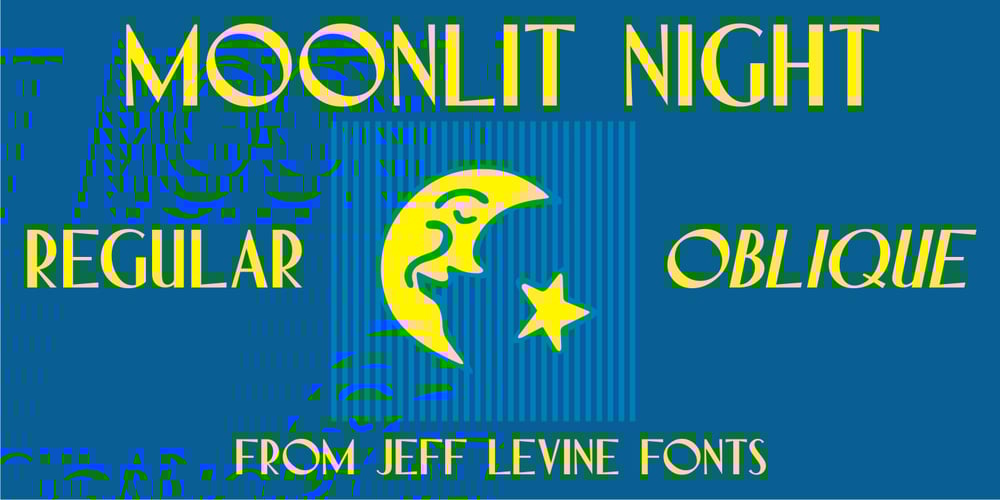
Moonlit Night JNL Font Family was designed by Jeff Levine and published by Jeff Levine. Moonlit Night JNL contains 2 styles and family package options. The simple, hand lettered sans serif title on the 1935 sheet music for “Campus Moon” was the design model for Moonlit Night JNL, which is available in both regular and oblique versions.